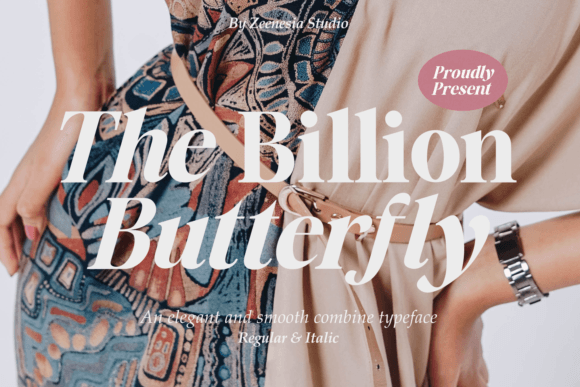
Introducing The Billion Butterfly Font, a captivating and elegant serif font designed by zeenesia. This font is not just your ordinary typeface; it is a masterpiece that will elevate your coffee brand to new heights.
With its smooth and sophisticated design, The Billion Butterfly Font exudes a sense of luxury and refinement. Its regular and italic styles create a perfect harmony that will leave a lasting impression on your audience.
This font is incredibly versatile, making it suitable for a wide range of applications. Whether you're working on editorial projects, logo design, web fonts, branding, product packaging, or even creating a stunning magazine, The Billion Butterfly Font is your ultimate tool.
Imagine the impact this font will have on your coffee brand's identity. With every stroke, it exudes a sense of elegance and sophistication, instantly capturing the attention of potential customers.
But it doesn't stop there. The Billion Butterfly Font is more than just a visual delight. It has the power to evoke emotions and create a unique connection with your audience. When paired with beautiful imagery, it transforms into a stylish text overlay, seamlessly blending with any background, adding a touch of class to your visuals.
Stand out from the crowd and make a statement with The Billion Butterfly Font. Its timeless design will never go out of style, ensuring that your brand remains relevant and captivating for years to come.
Don't settle for ordinary fonts when you can have something extraordinary. The Billion Butterfly Font is a game-changer for your coffee brand, giving it the edge it deserves.